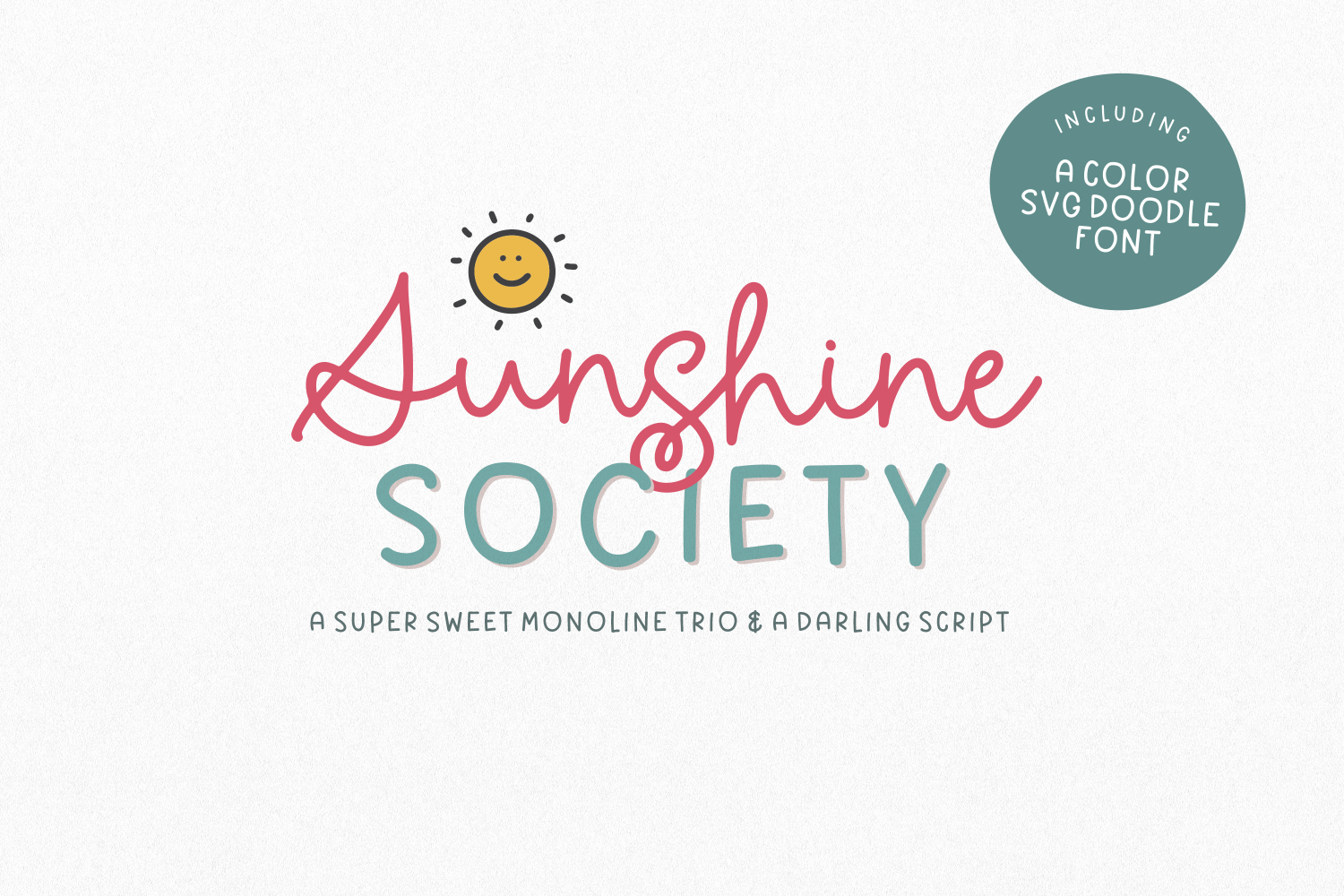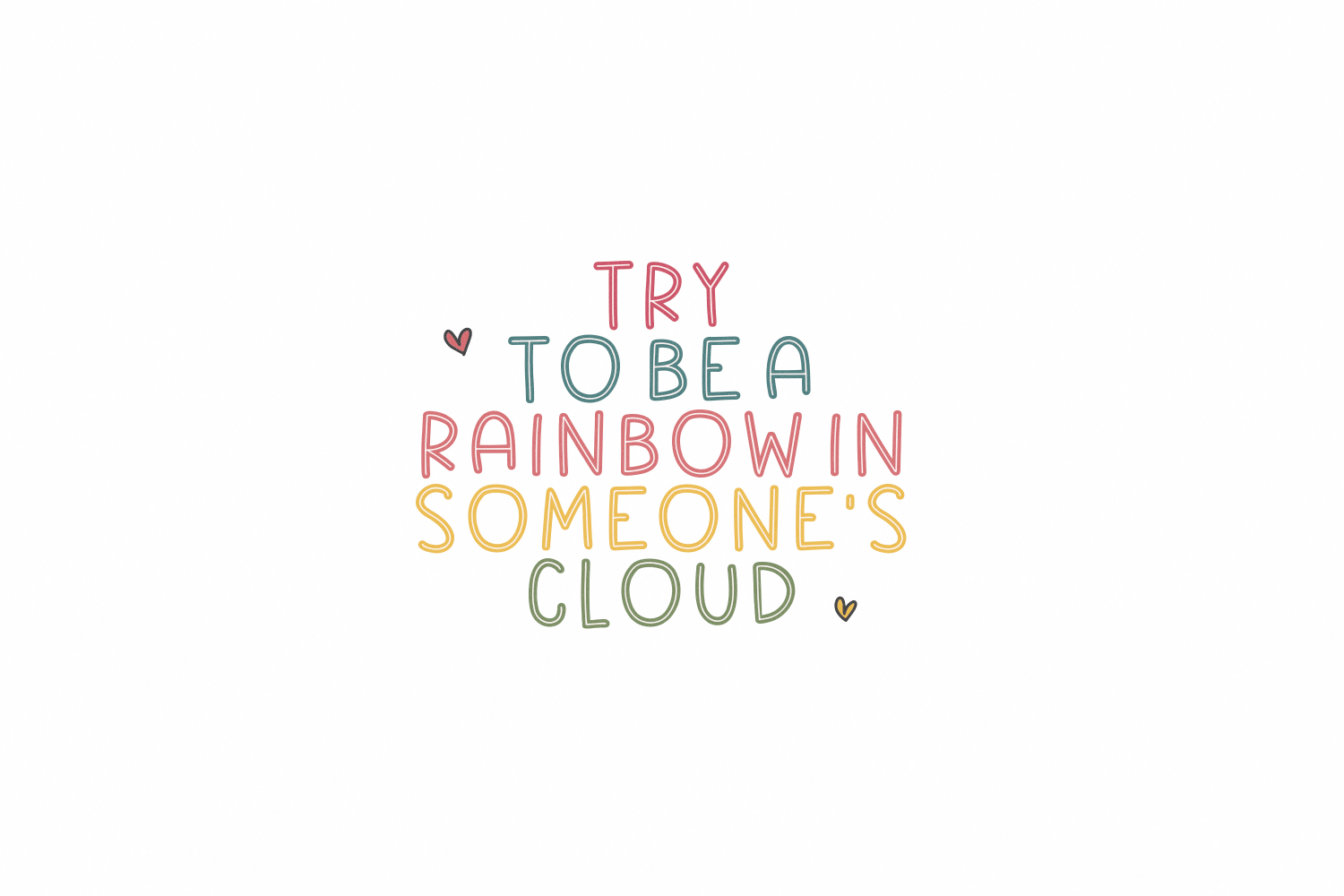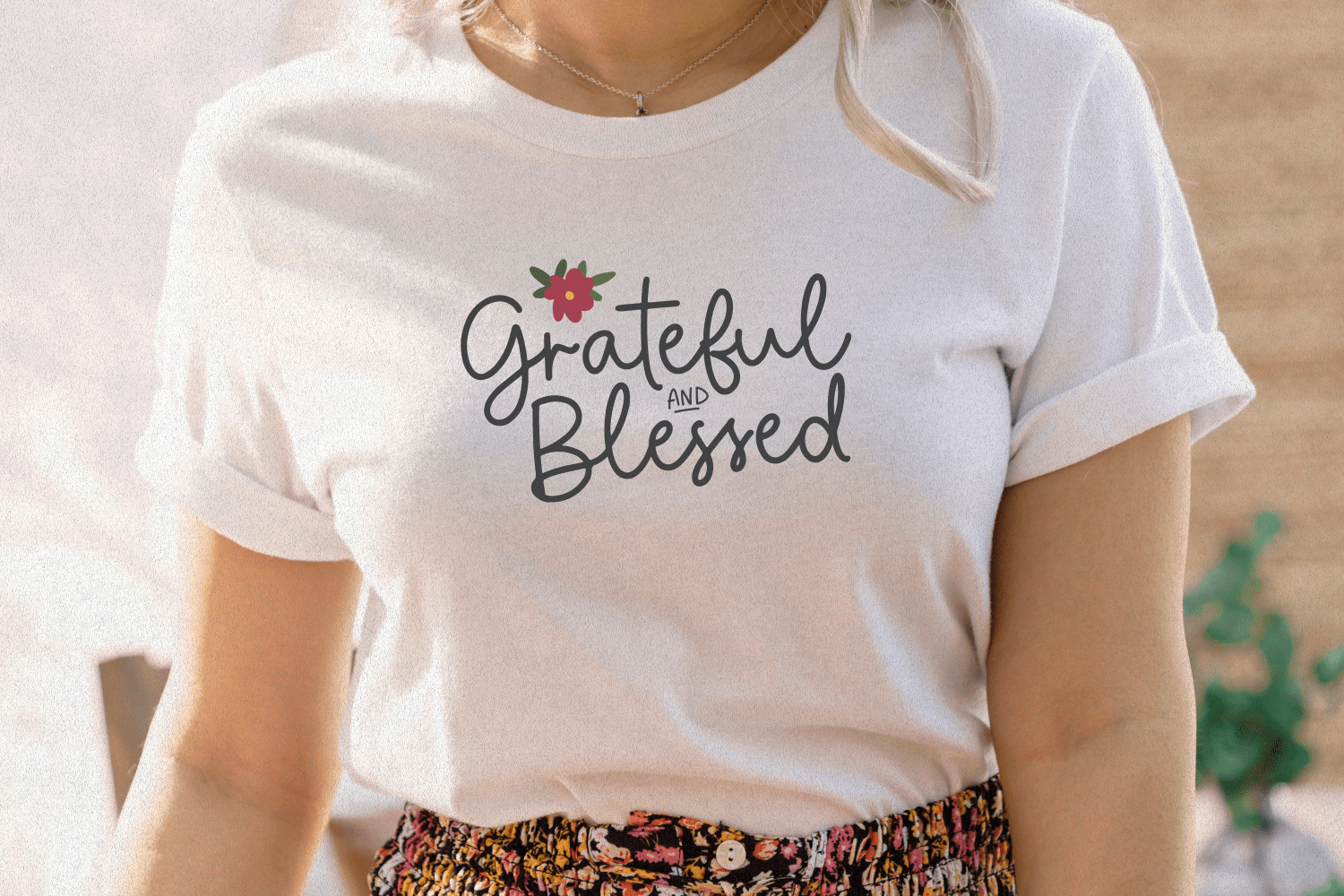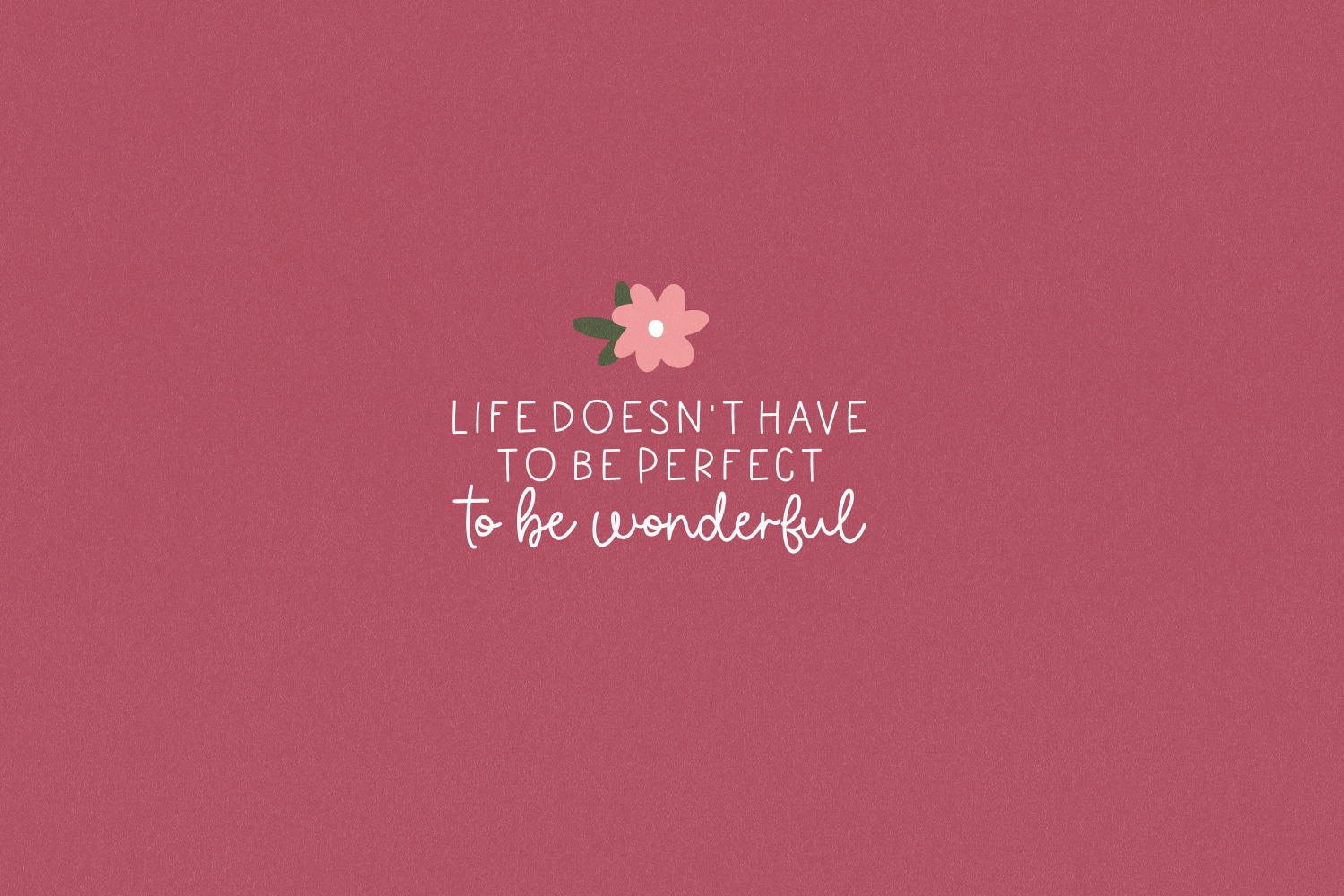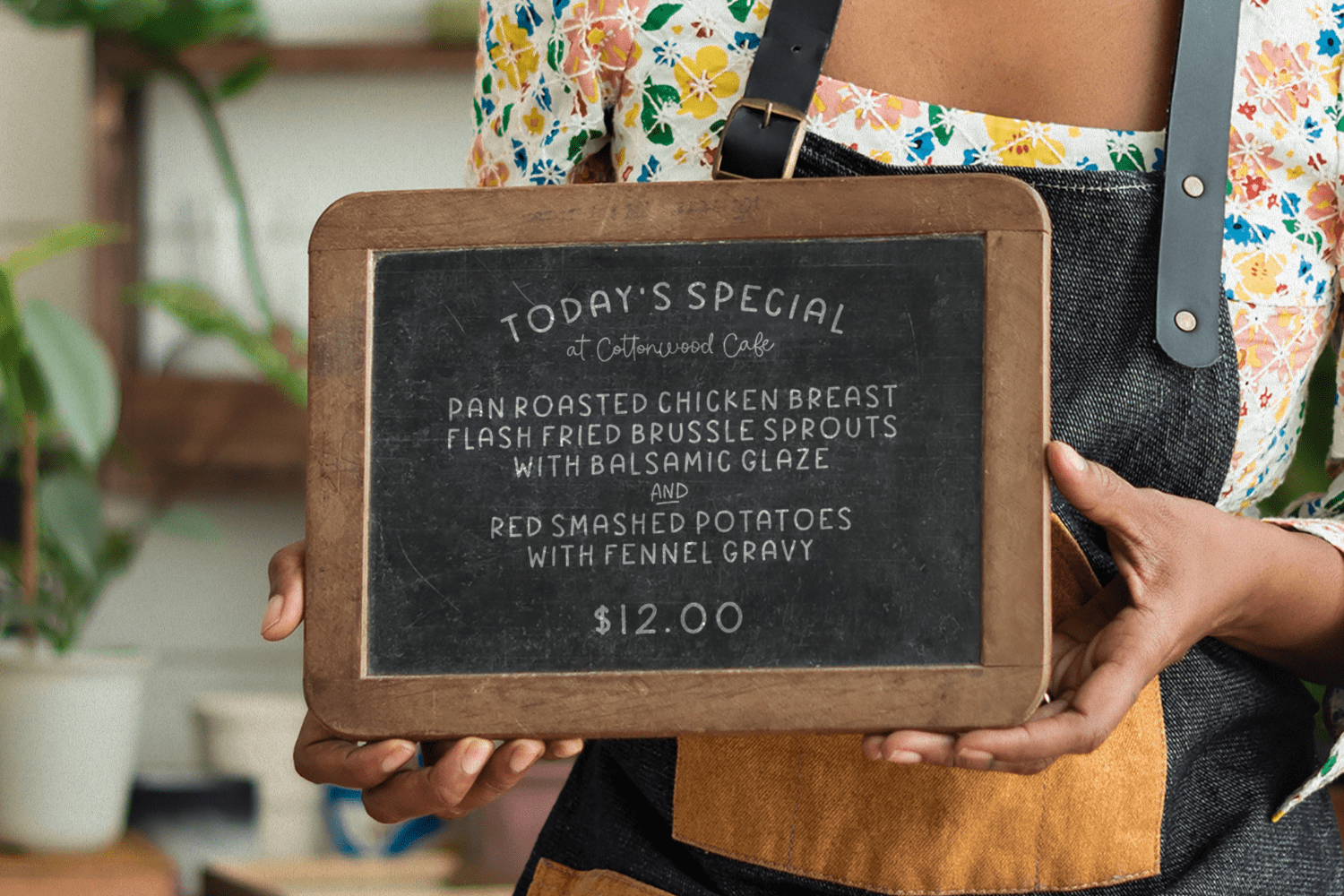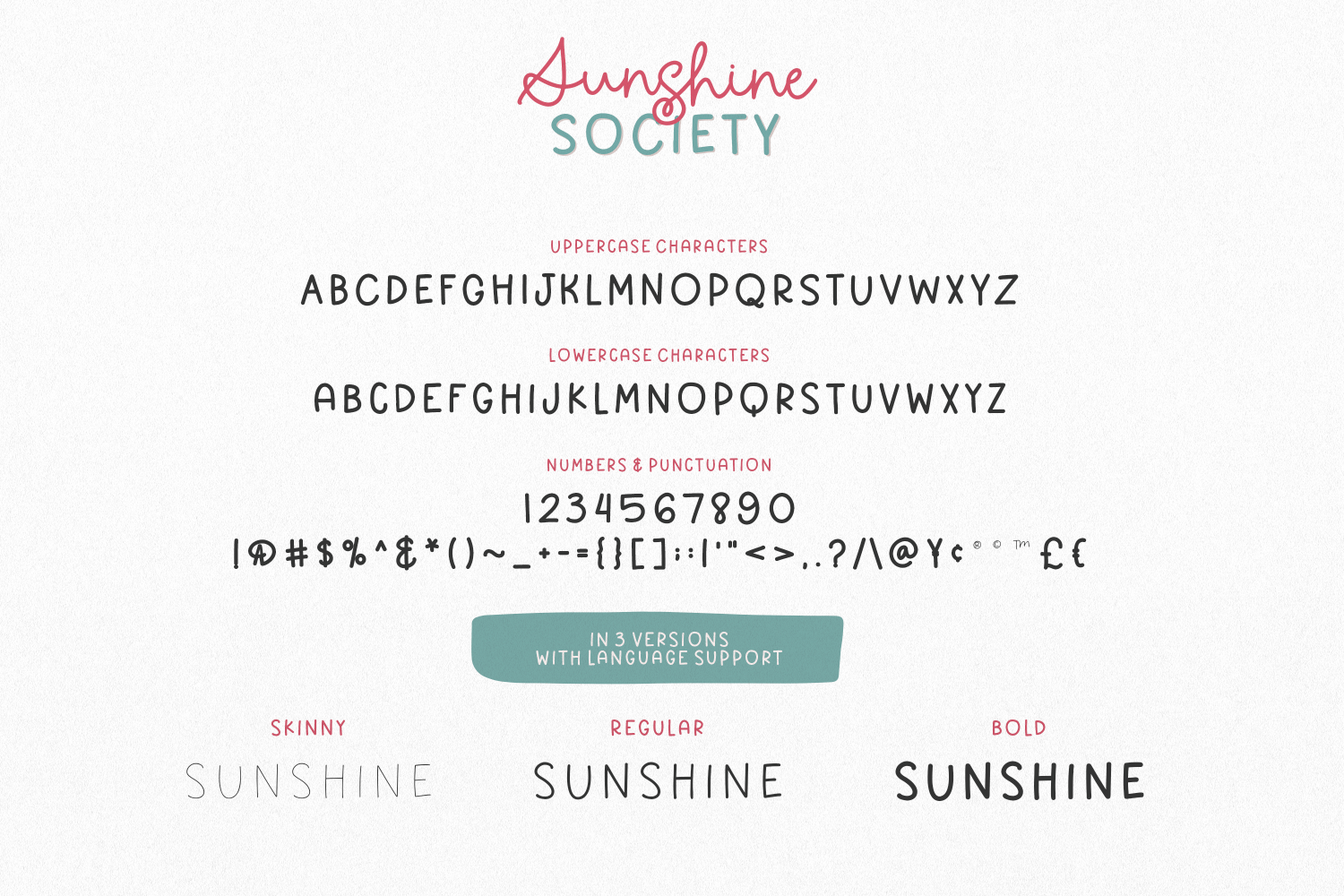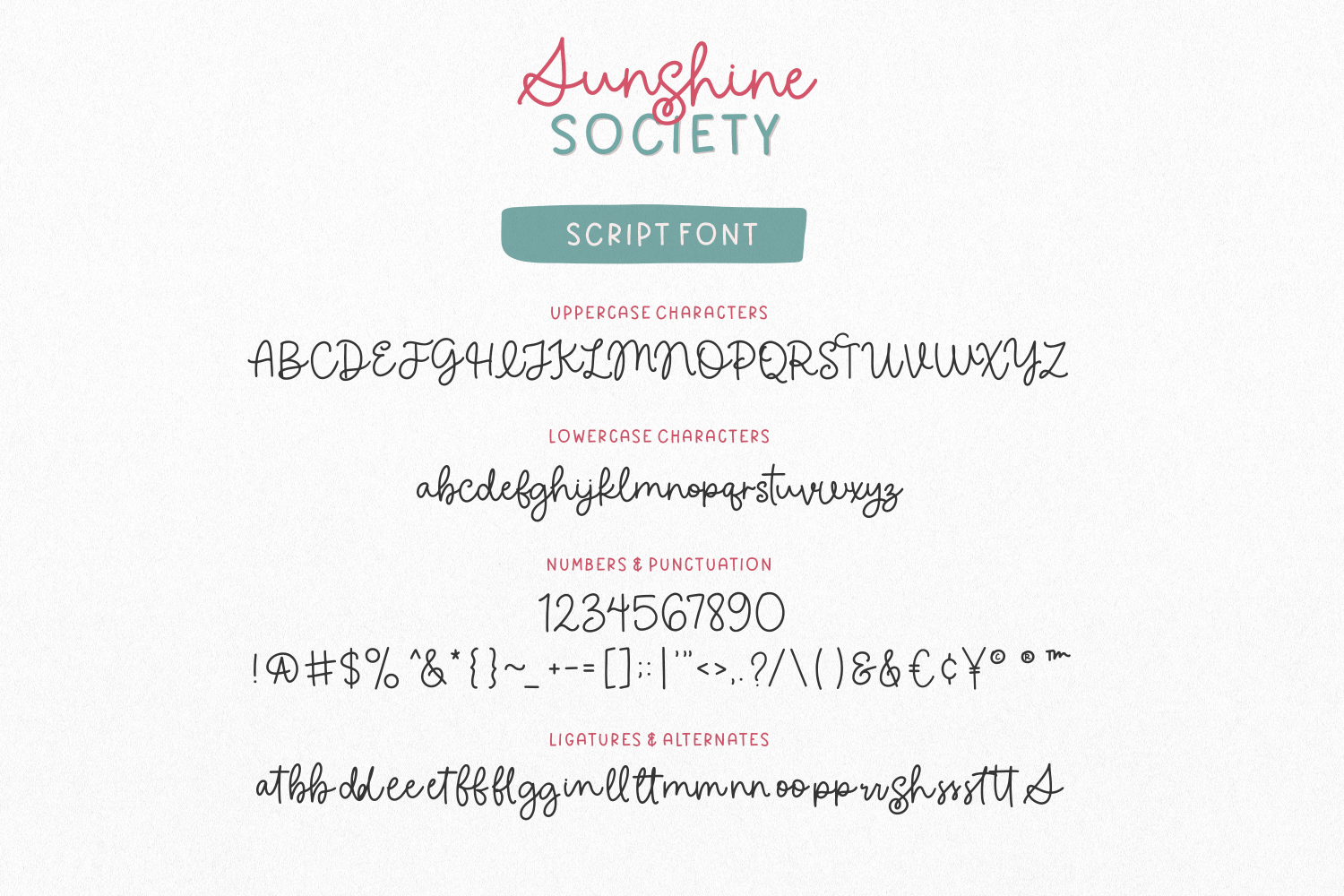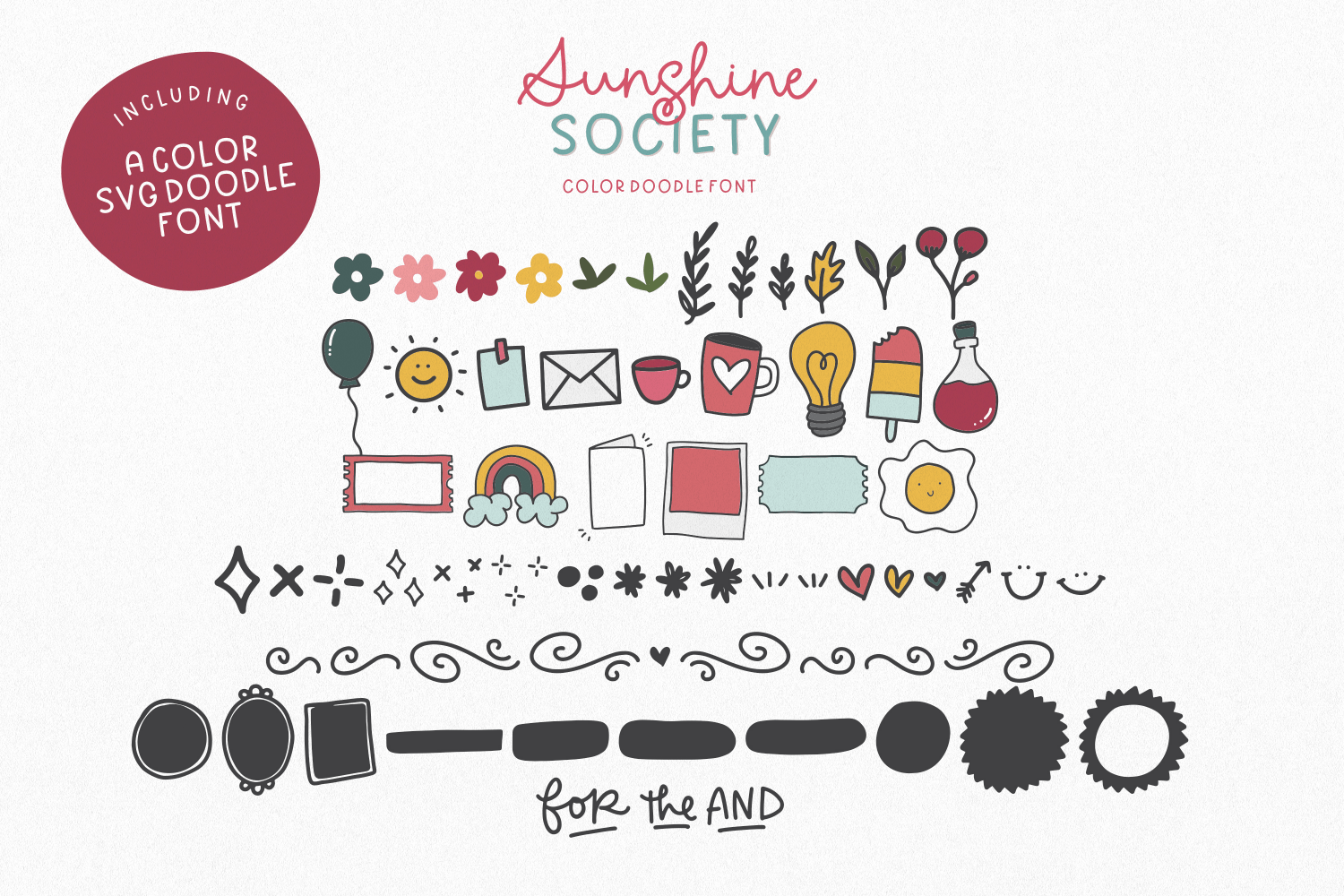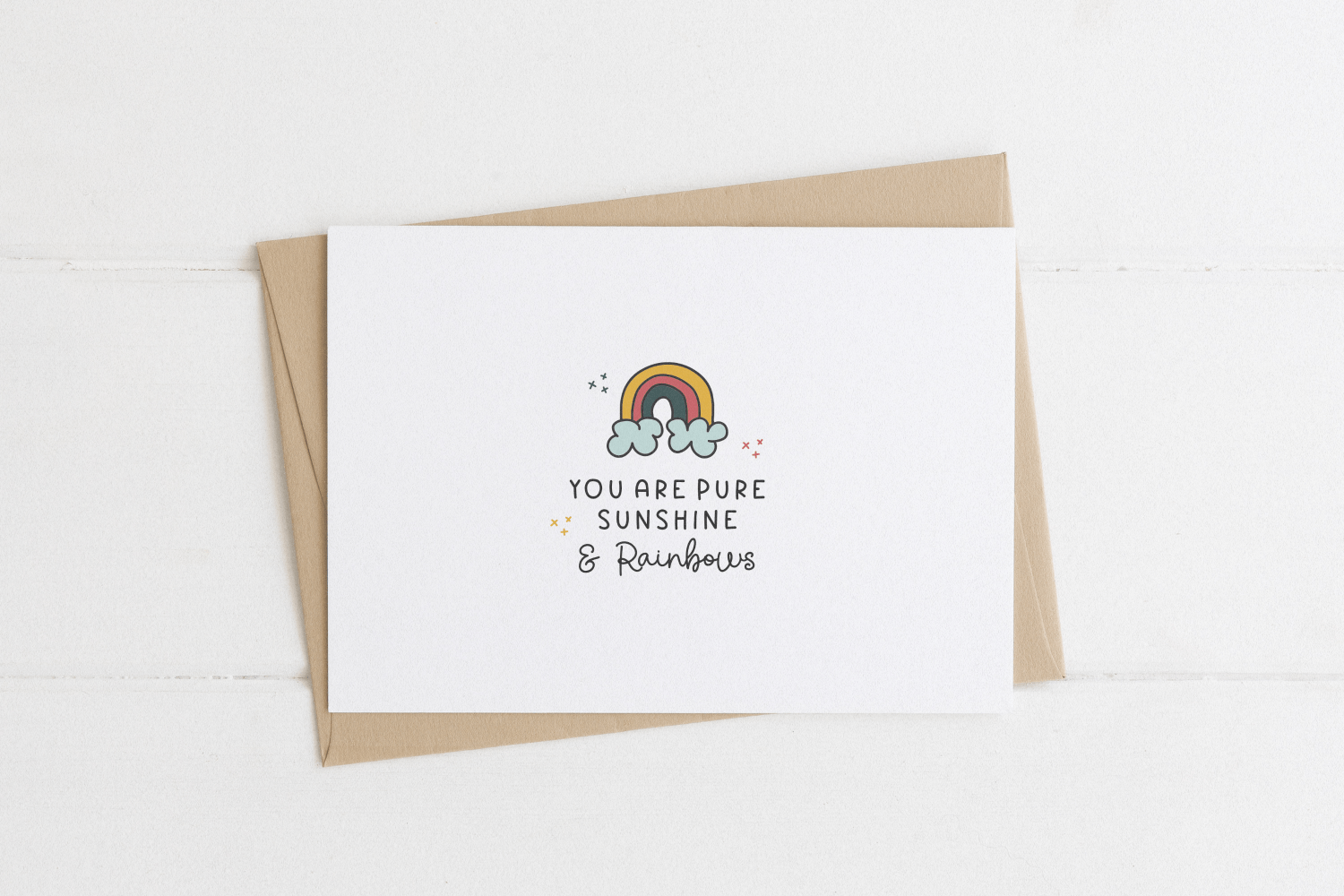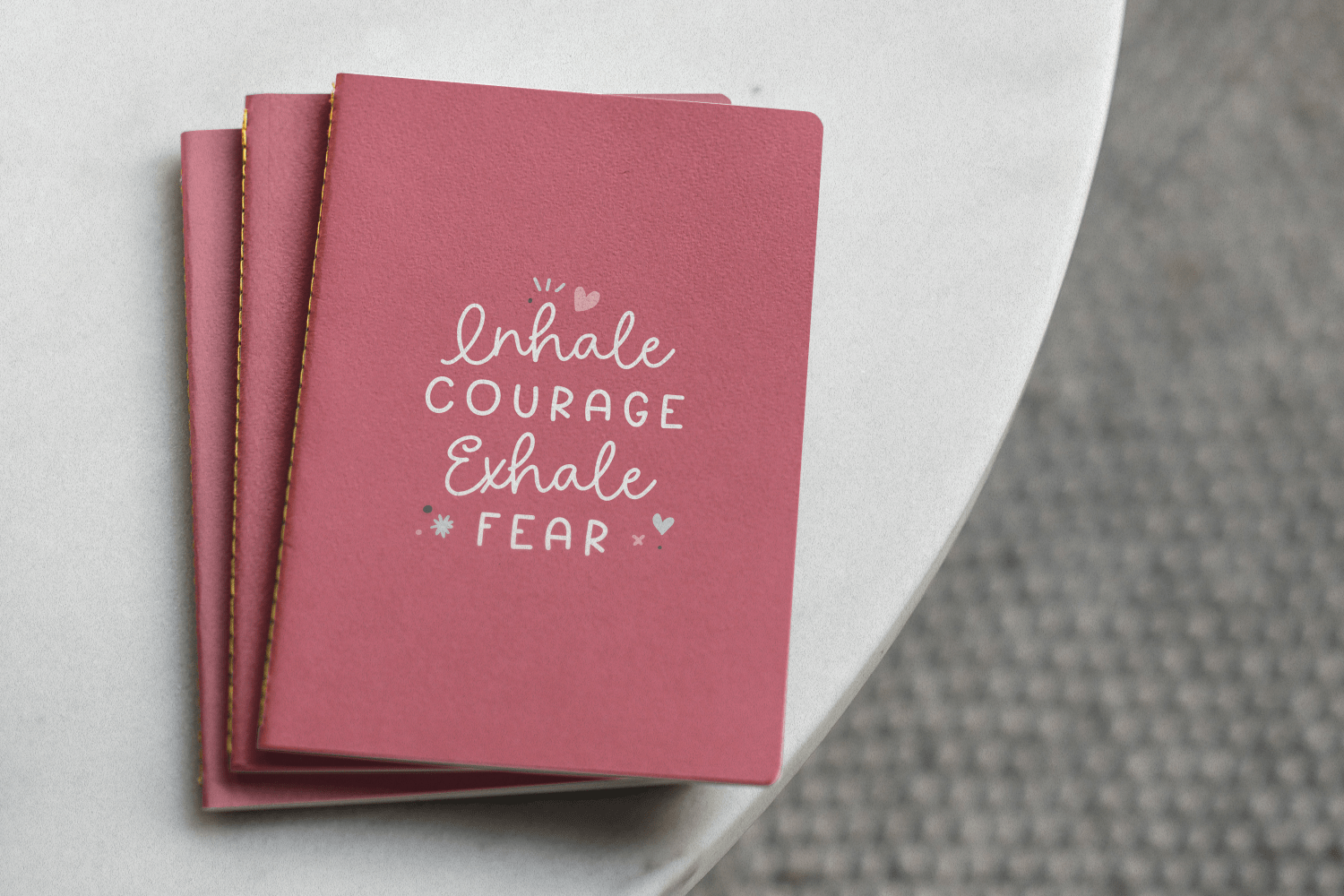
Sunshine Society
Font Family by Callie Rian & Co
Looking for a little bit of sunshine lately? ?? Well, I've got ya covered! Introducing, Sunshine Society, a super sweet monoline font trio with a darling script and a handy color SVG font. Sunshine Society was designed for simple quotes, logos, stationary and greeting cards, but also looks super sweet on merchandise and social media posts. Plus, it's streamlined & smooth, so feel free to use it with your Cricut & Silhouette machines. ;)